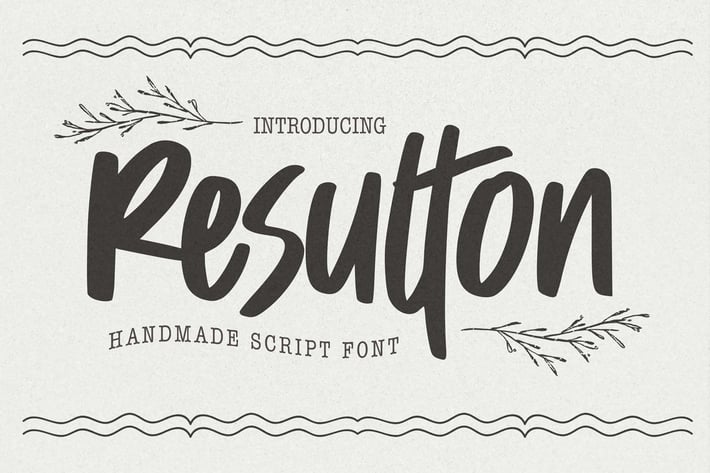
Resulton - Handmade Script Font
Hello Everyone, introduce our new product Font Resulton This Is Handmade Script Font. This is a Textured Natural Style and Handwritten font.
This font Resulton is great for your next creative project such as logos, printed quotes, invitations, cards, product packaging, headers, Logotype, Letterhead, Poster, Design this font is great for your creative projects such as watermark on photography, and perfect for logos & branding, invitation,advertisements,product designs, stationery, wedding designs,label ,product packaging, special events or anything that need handwritting taste.
That is has charming, authentic and relaxed characteristic more natural look to your text.